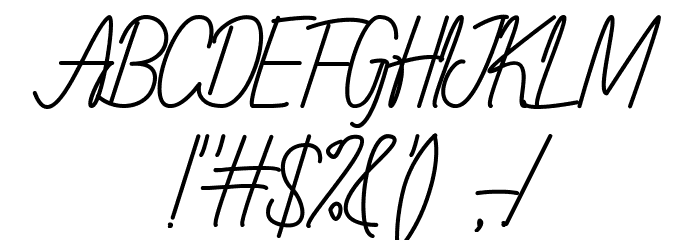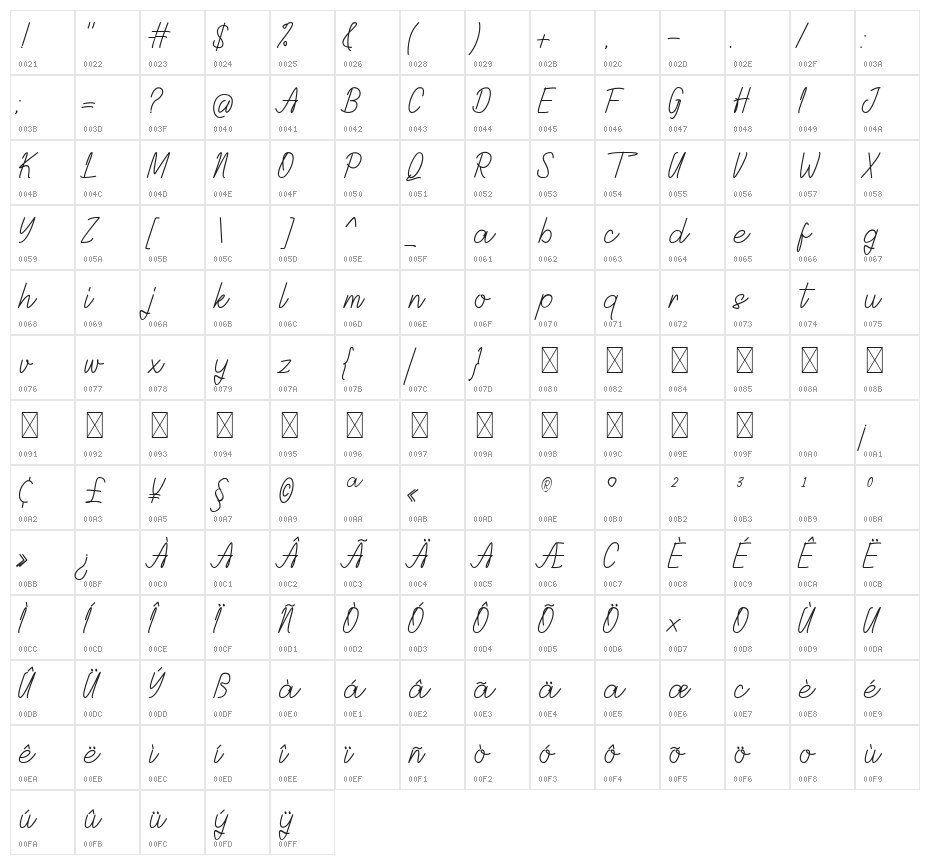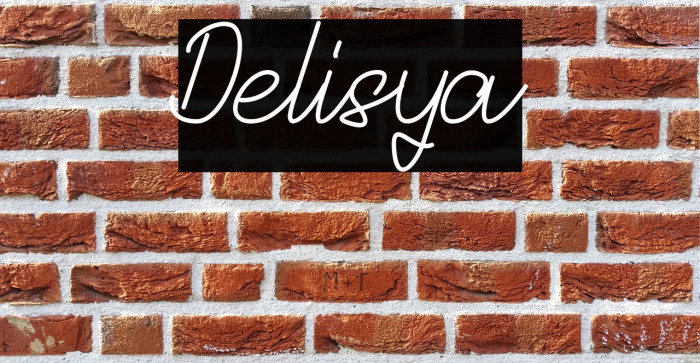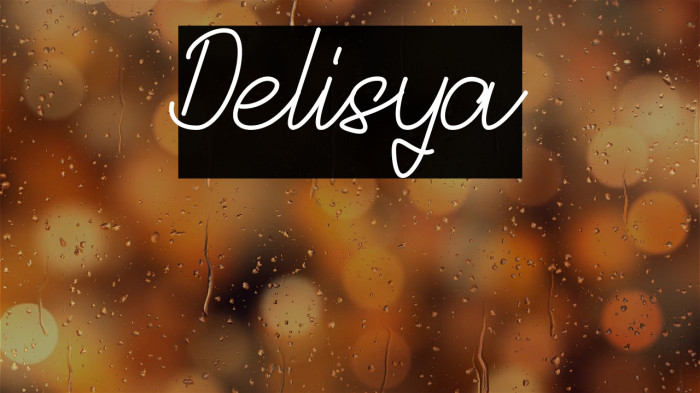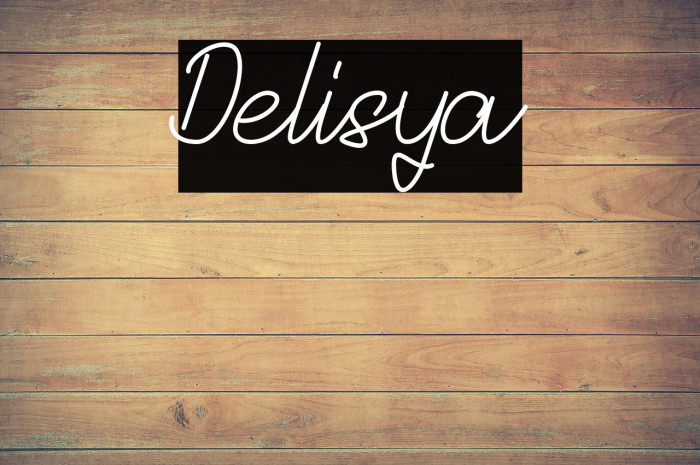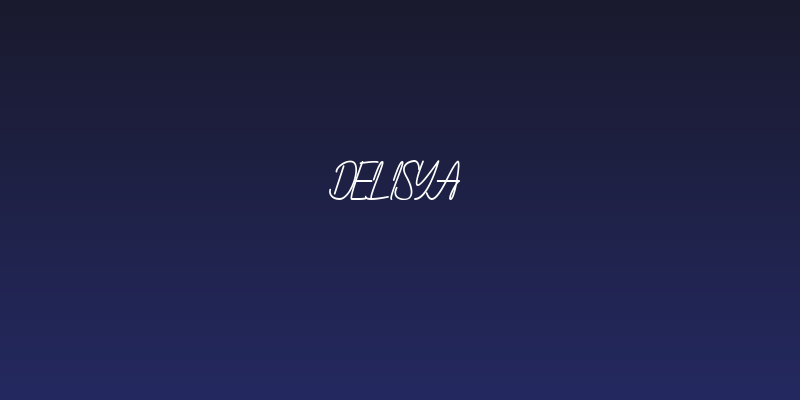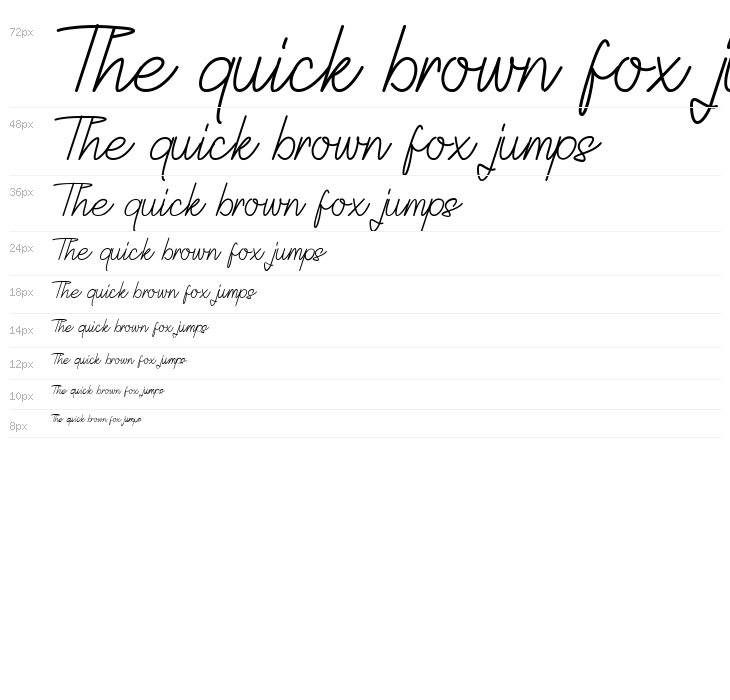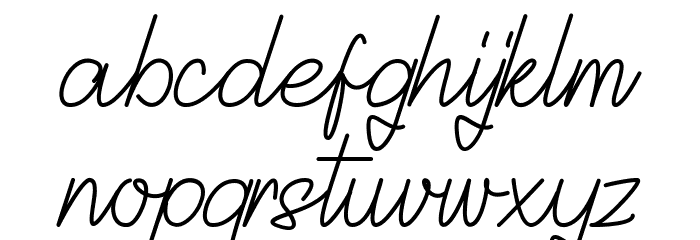
Delisya Font
Delisya Description
This font features a flowing, cursive style that mimics elegant handwriting. The letters are interconnected, creating a seamless and fluid appearance. The strokes are smooth and consistent, with a slight slant that adds to the dynamic feel. The uppercase letters are bold and prominent, while the lowercase letters maintain a delicate balance, offering a harmonious blend. The numerals and special characters are crafted with the same attention to detail, ensuring uniformity across the typeface. This font exudes a sense of sophistication and grace, making it ideal for projects that require a personal touch.